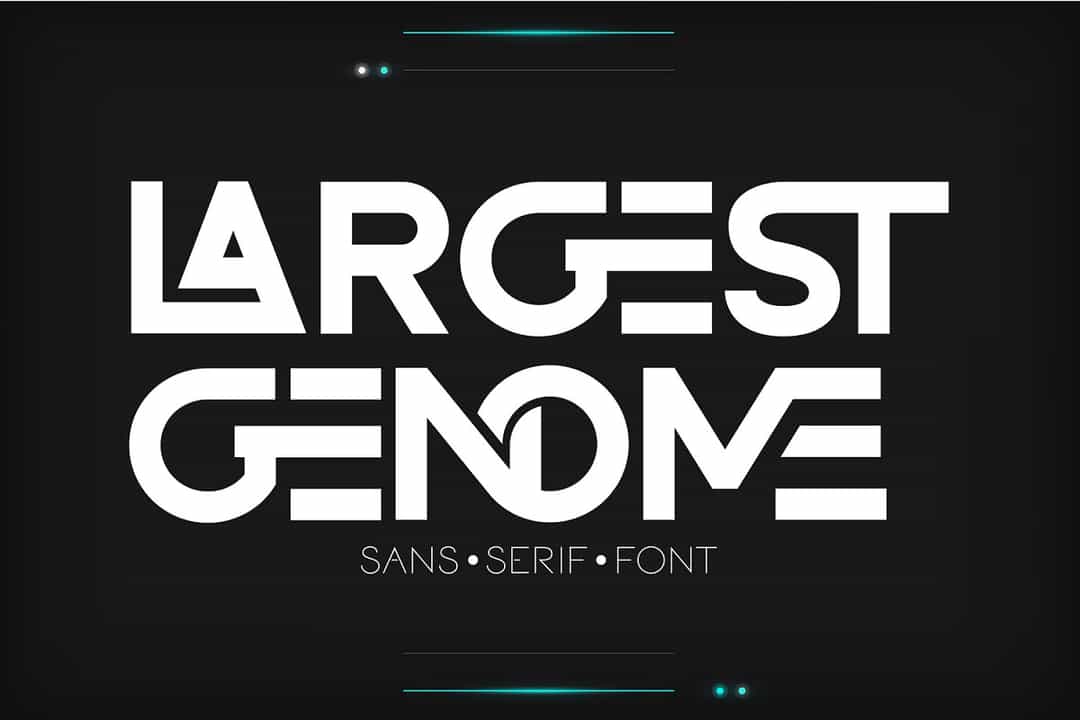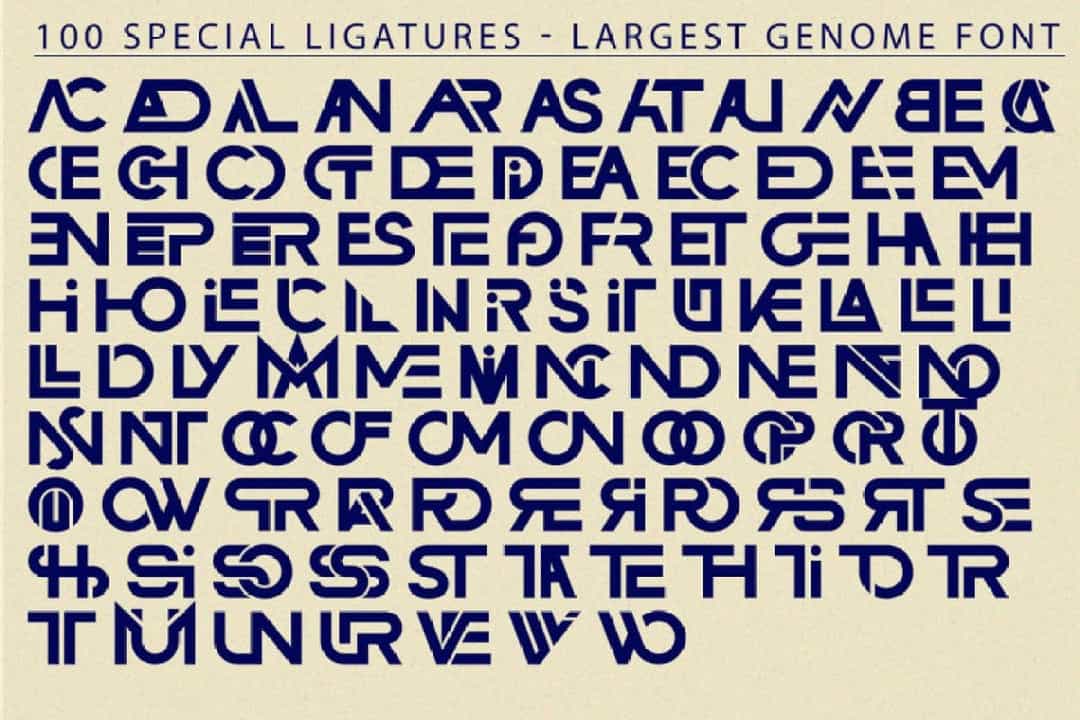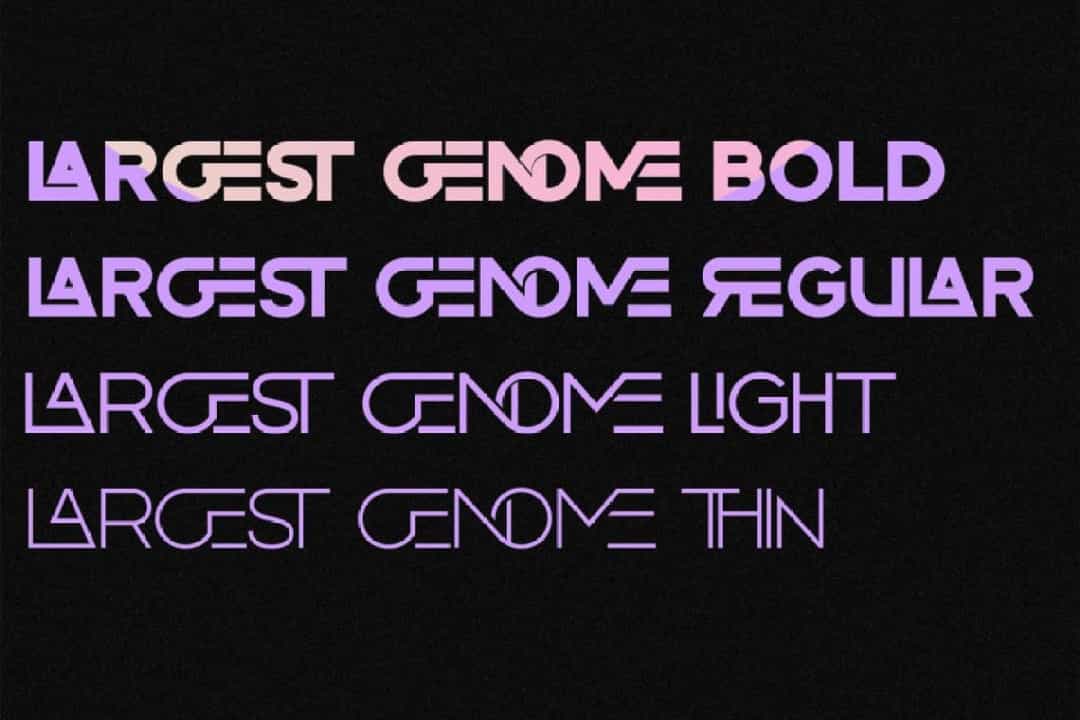
Largest Genome Font – an elegant geometric typeface and classic sans serif font with contemporary geometry, featuring gorgeous ligatures that immediately boost any design project – offers the largest Genome font Ligature Font on the market today. This elegant editorial font enhances designs with its smooth and classic lines as well as beautiful ligatures to complete its elegance and immediately elevate designs.